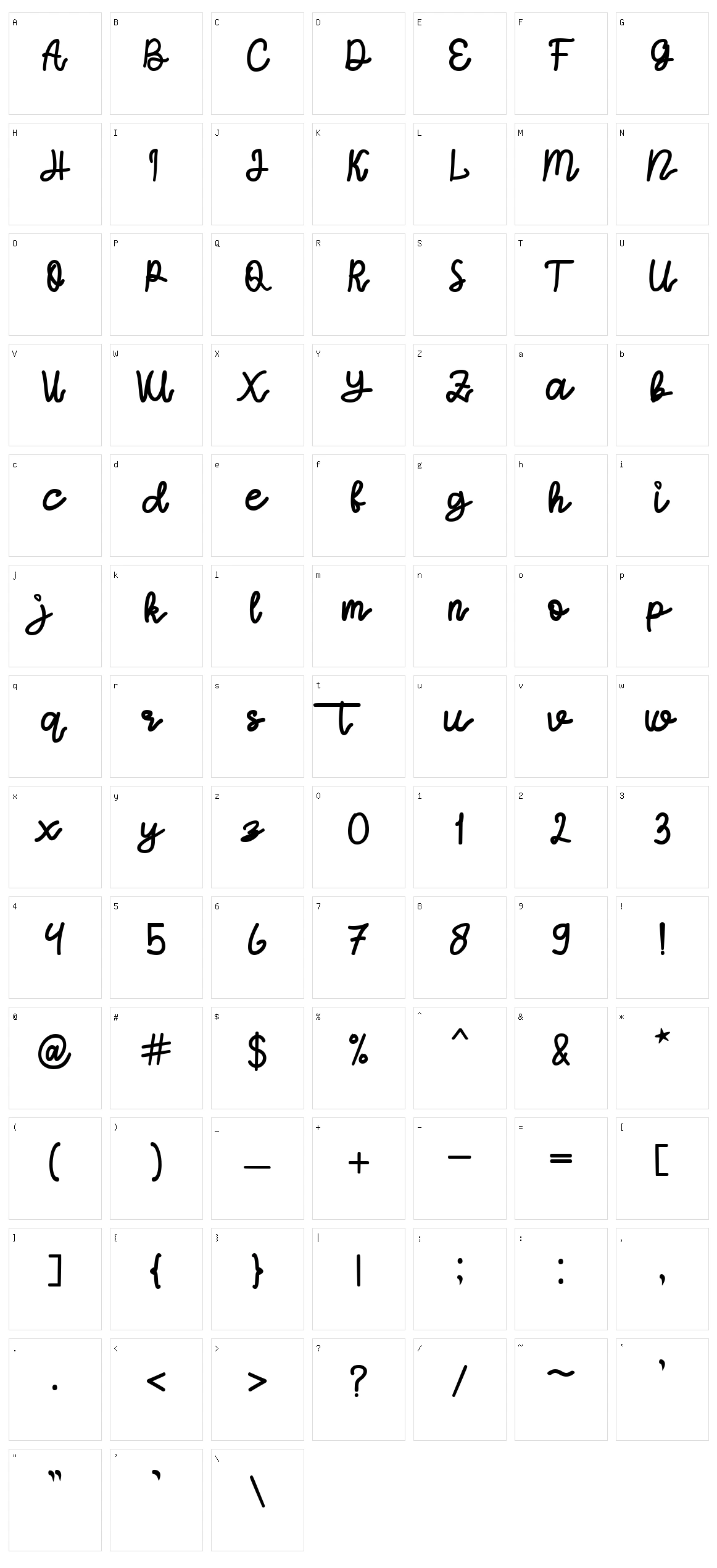
The free font Protector is carefully designed by Dankin' Don, showcasing a thoughtful balance of creativity and usability and falls under the Script font style. When you download the ZIP file, it contains only 37.05 KB of font files, making it lightweight and quick to download. Please review the license details below to understand permitted usage and distribution rights. If license information is not available, we recommend using this font for personal projects only or contacting the author directly for commercial usage permissions.